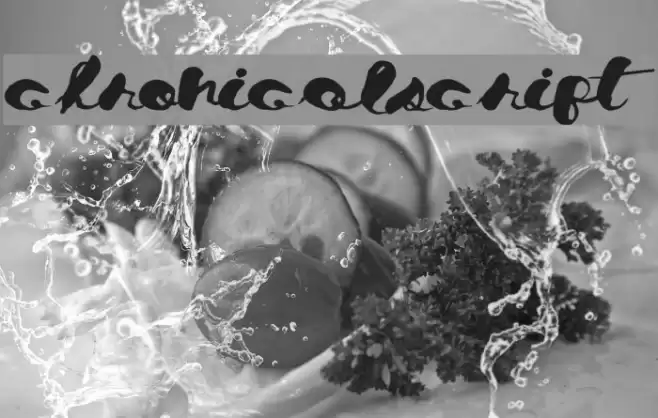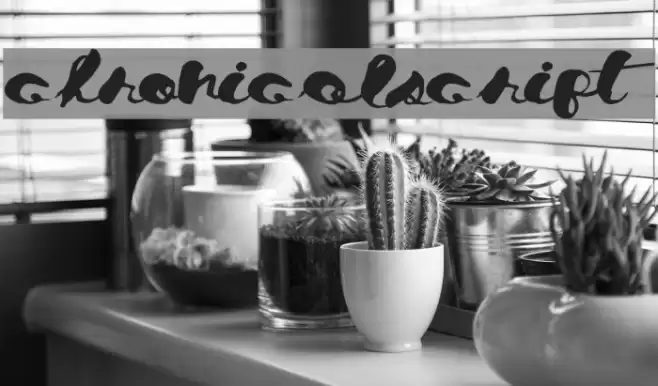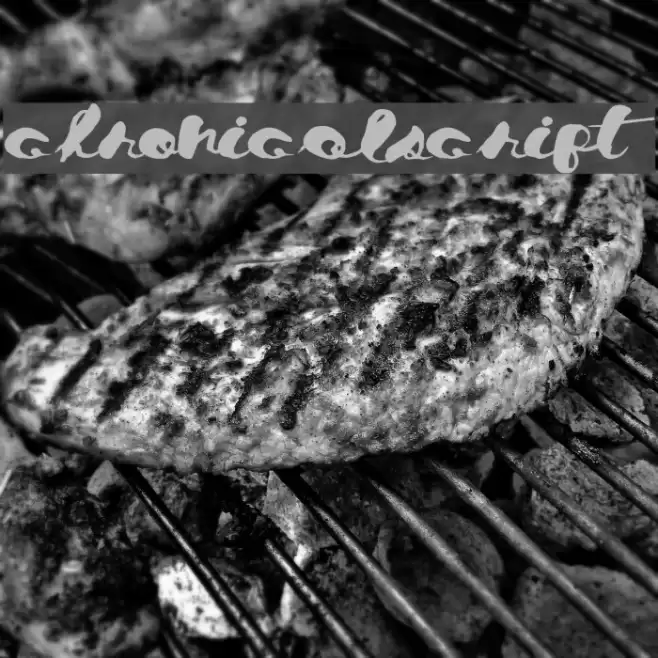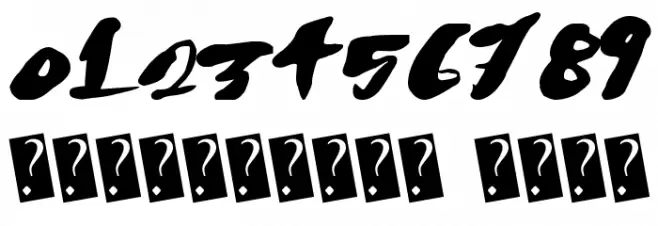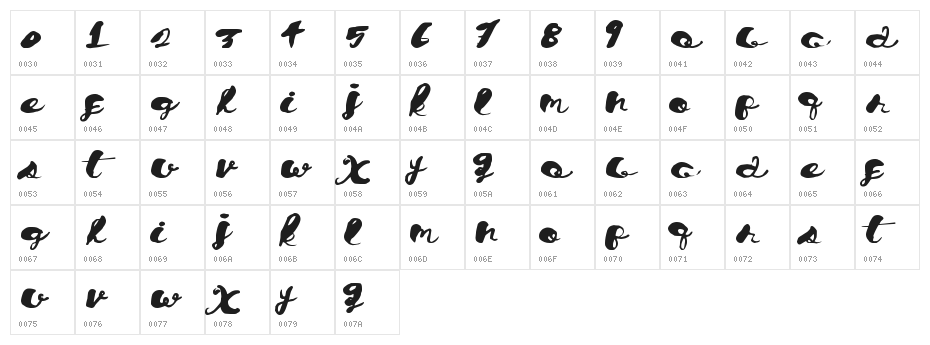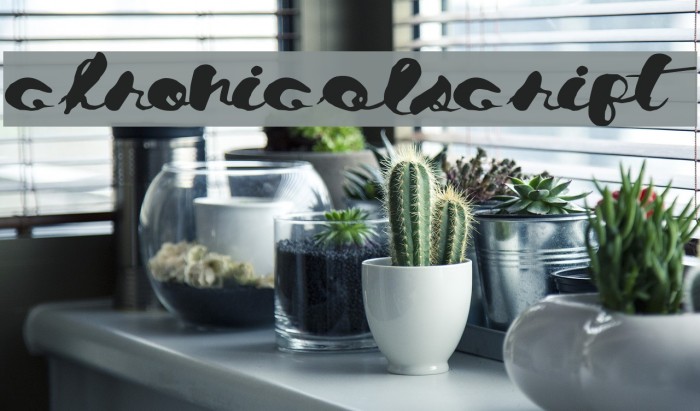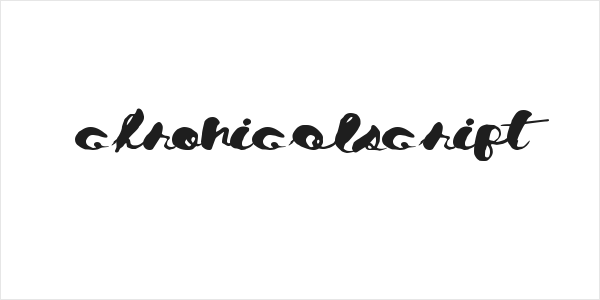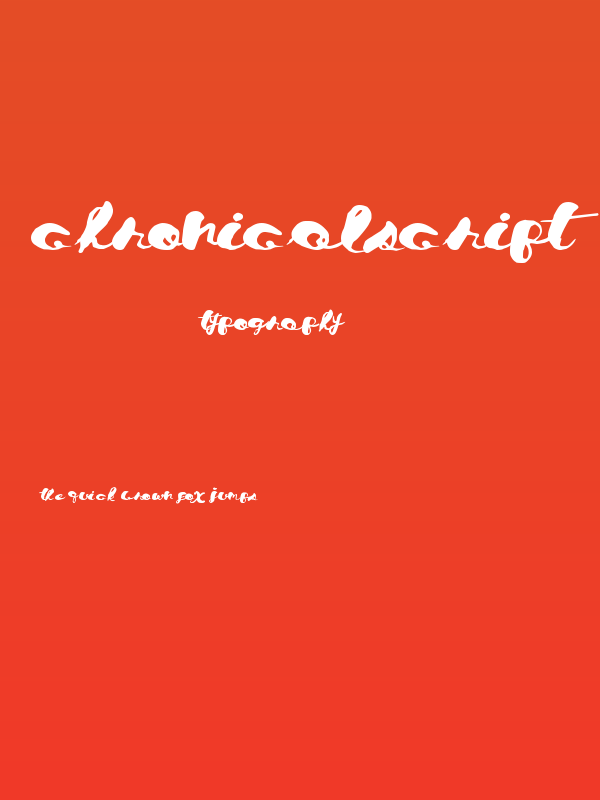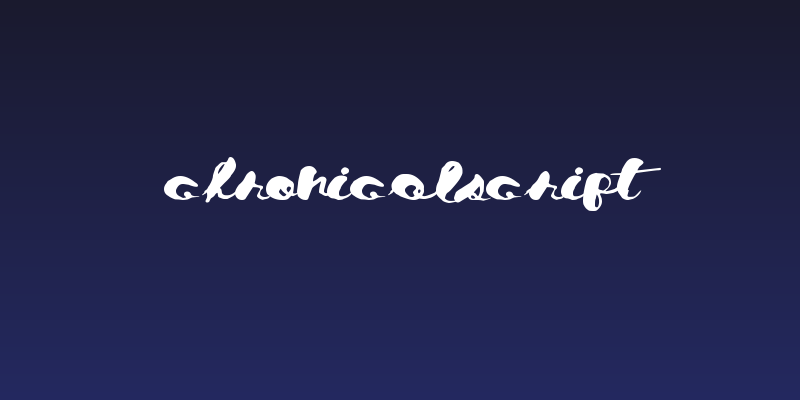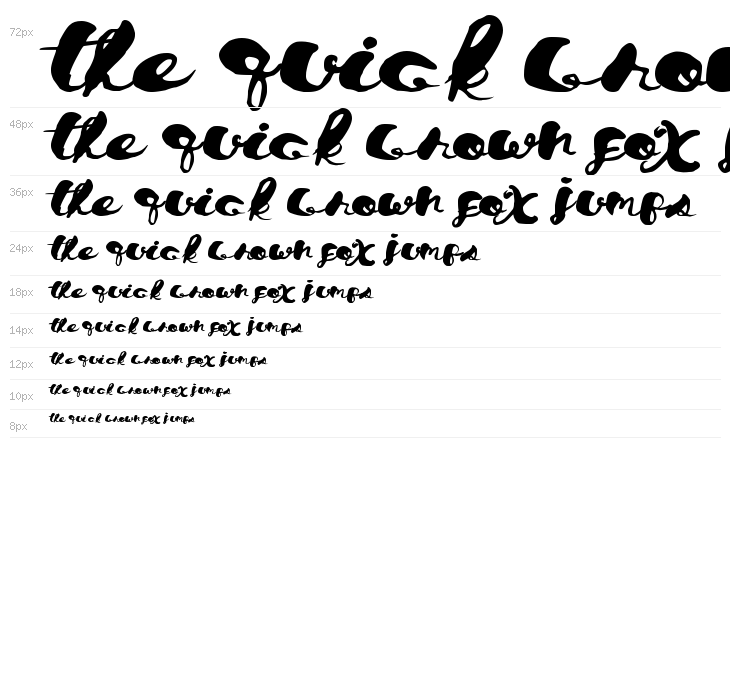
ChronicalScript Font
ChronicalScript Description
This font exudes a bold and expressive style, characterized by its fluid, cursive script that mimics the elegance of handwritten calligraphy. The letters are connected, creating a seamless flow that enhances its artistic appeal. The strokes are thick and dynamic, with a high contrast between thick and thin lines, adding to its dramatic flair. The font's unique character is further emphasized by the playful loops and swirls, making it ideal for creative and decorative purposes. Its distinctive style captures attention and conveys a sense of sophistication and creativity.
A bold, expressive cursive script with high contrast and artistic flair from Uncategorized fonts.
- Proposed Projects: Ideal for wedding invitations, greeting cards, branding, and artistic projects that require a touch of elegance and creativity.
- Character Spacing: Tight
- Use Case: Logos, Invitations, Artistic projects